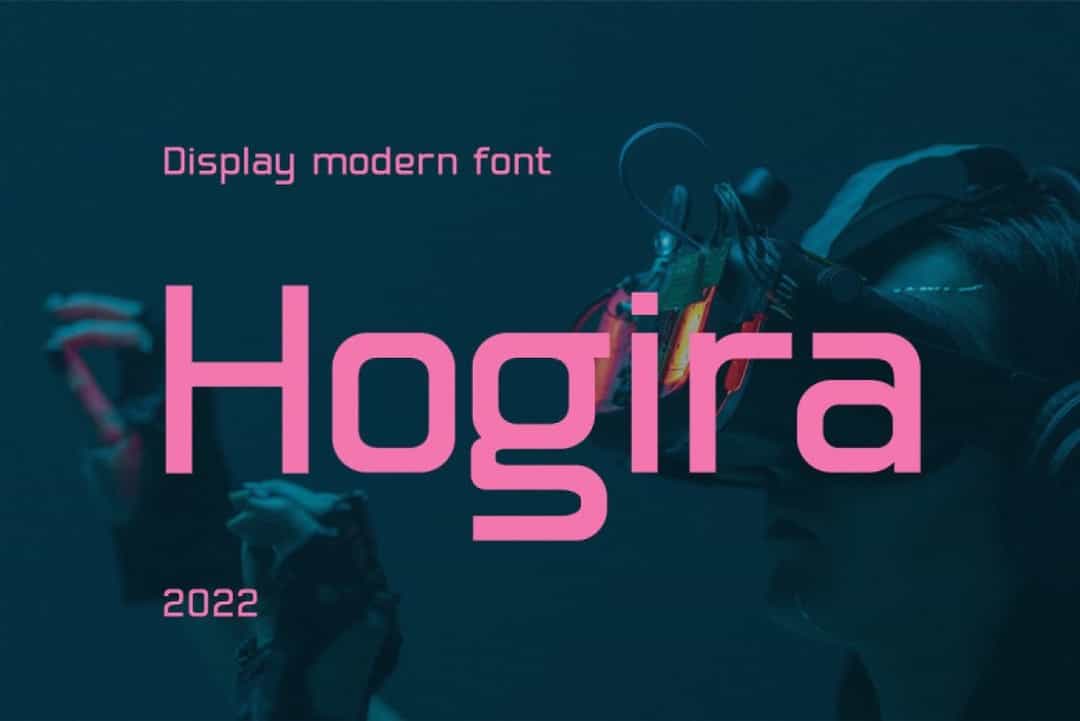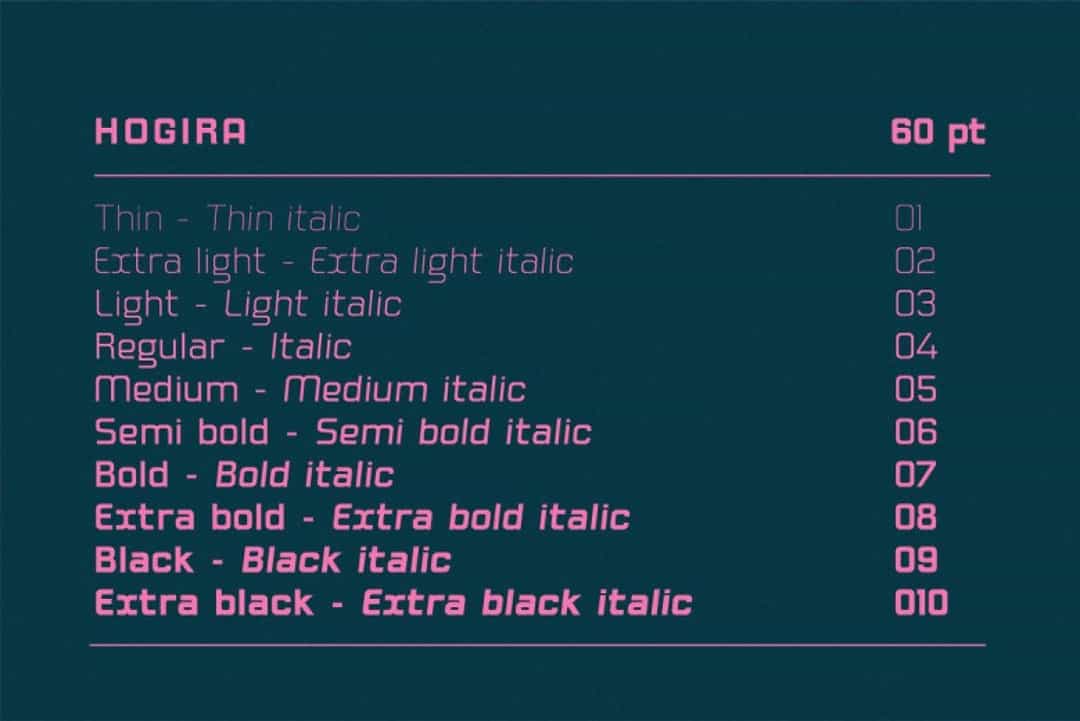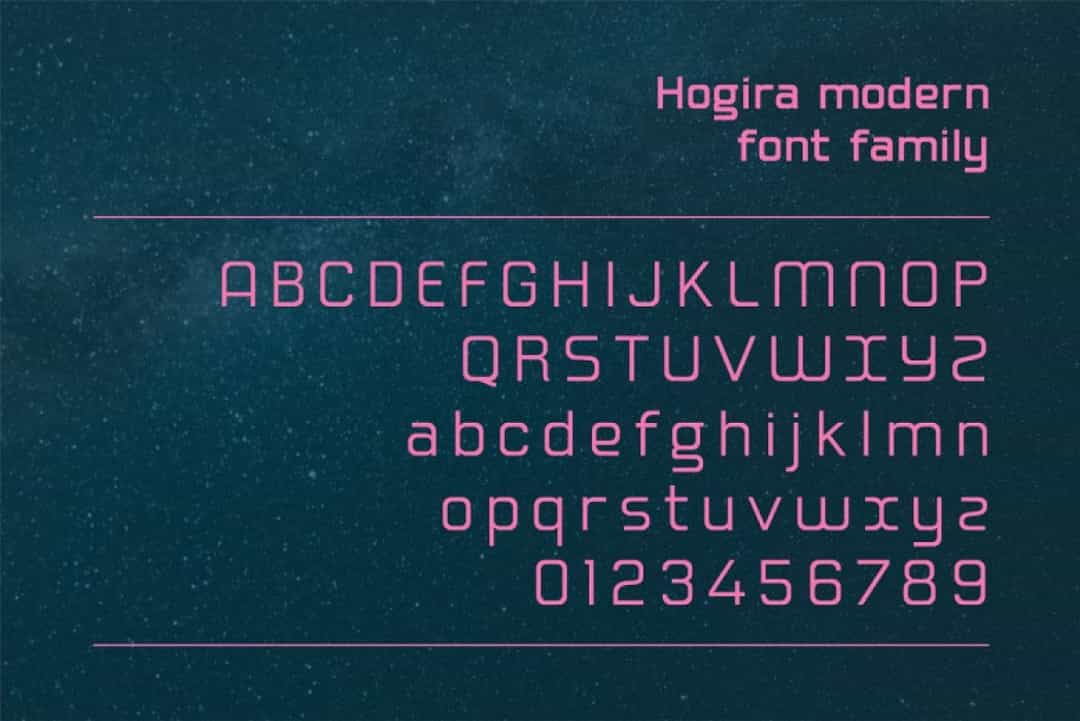
Hogira Font is a future-looking sans serif display font, Hogira is very suitable for use in writing titles, making text-based logos, websites, and modern design types that are related to emerging technology themes. Hogira also supports 20 families and multiple languages.